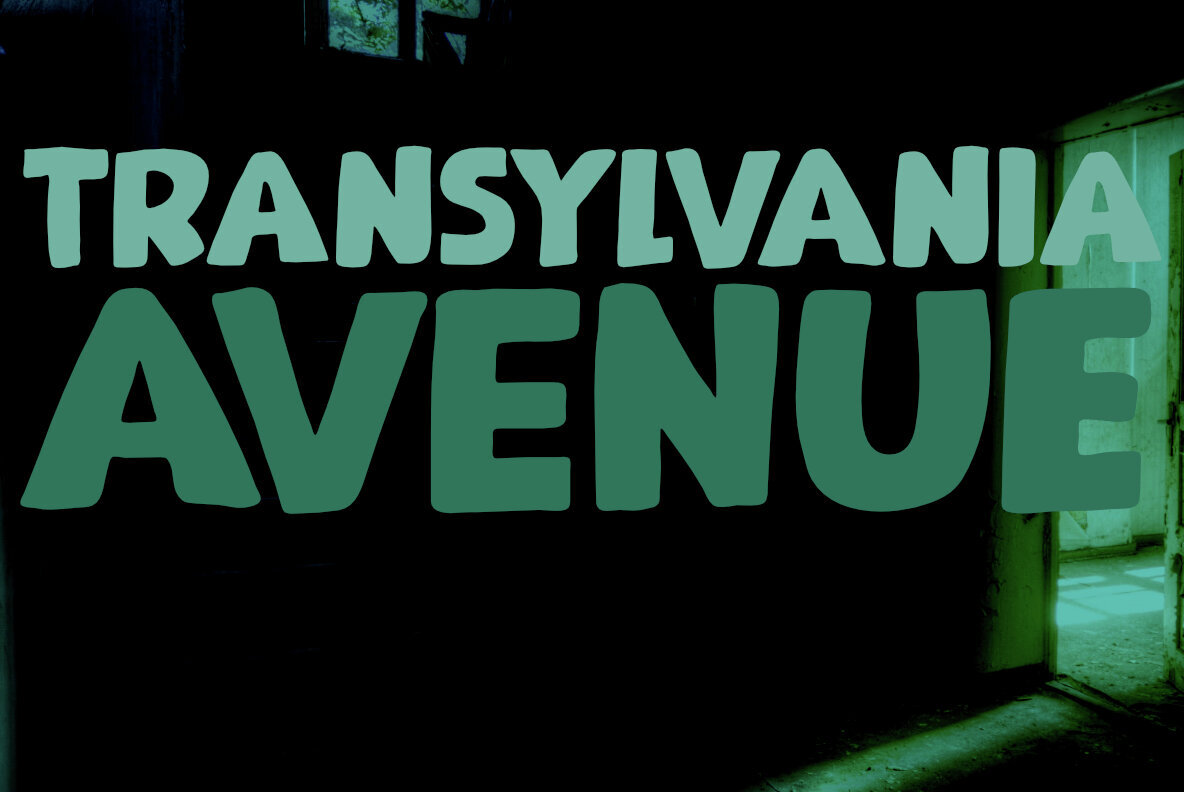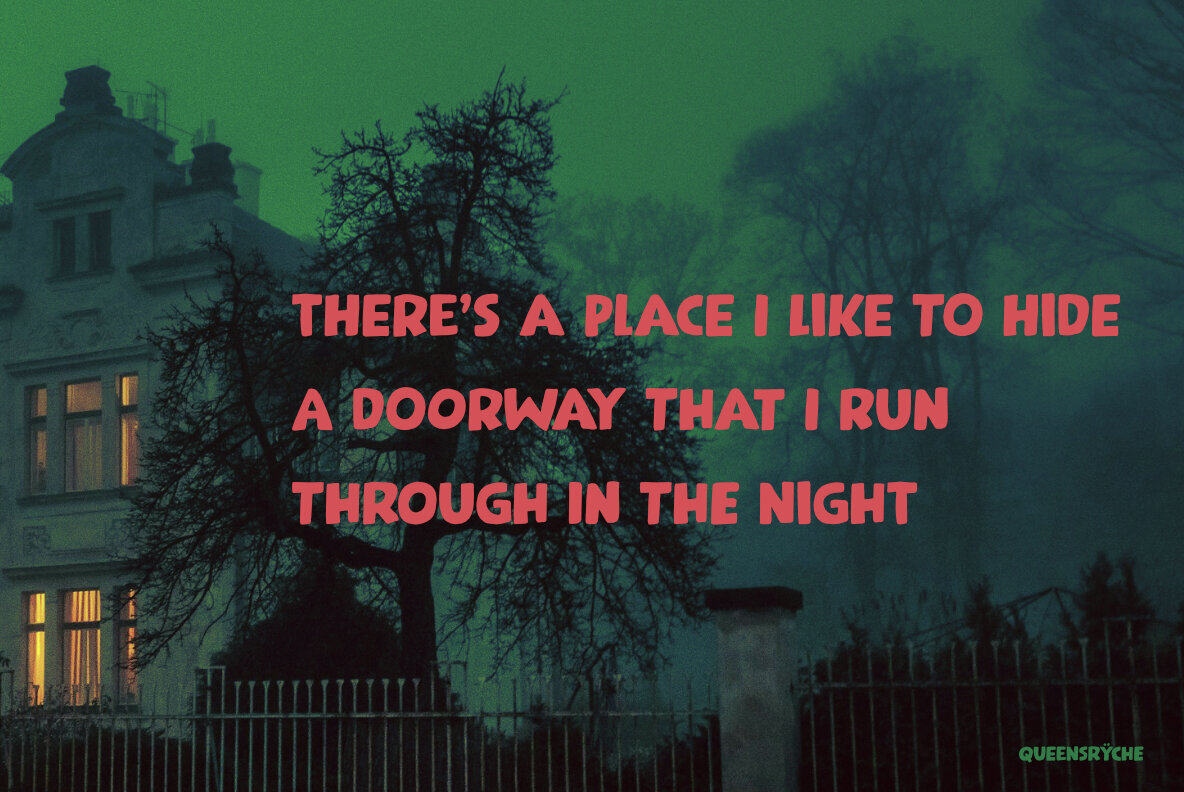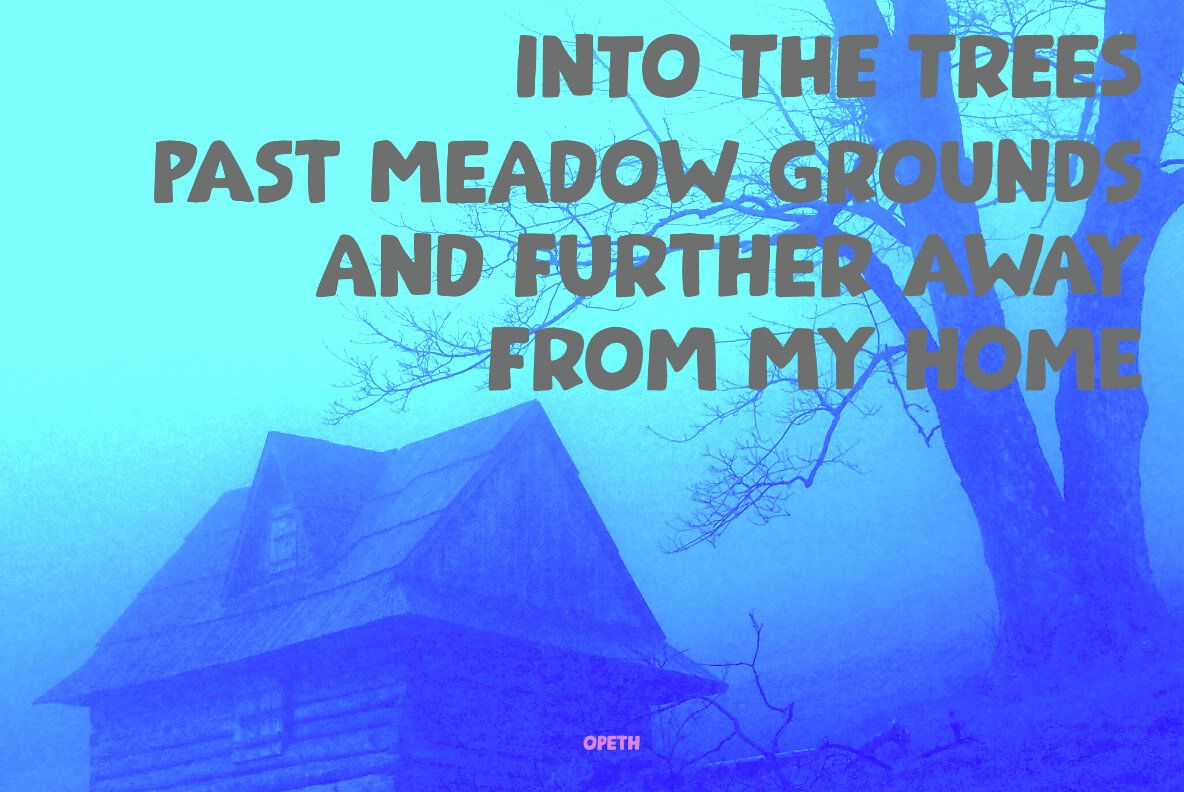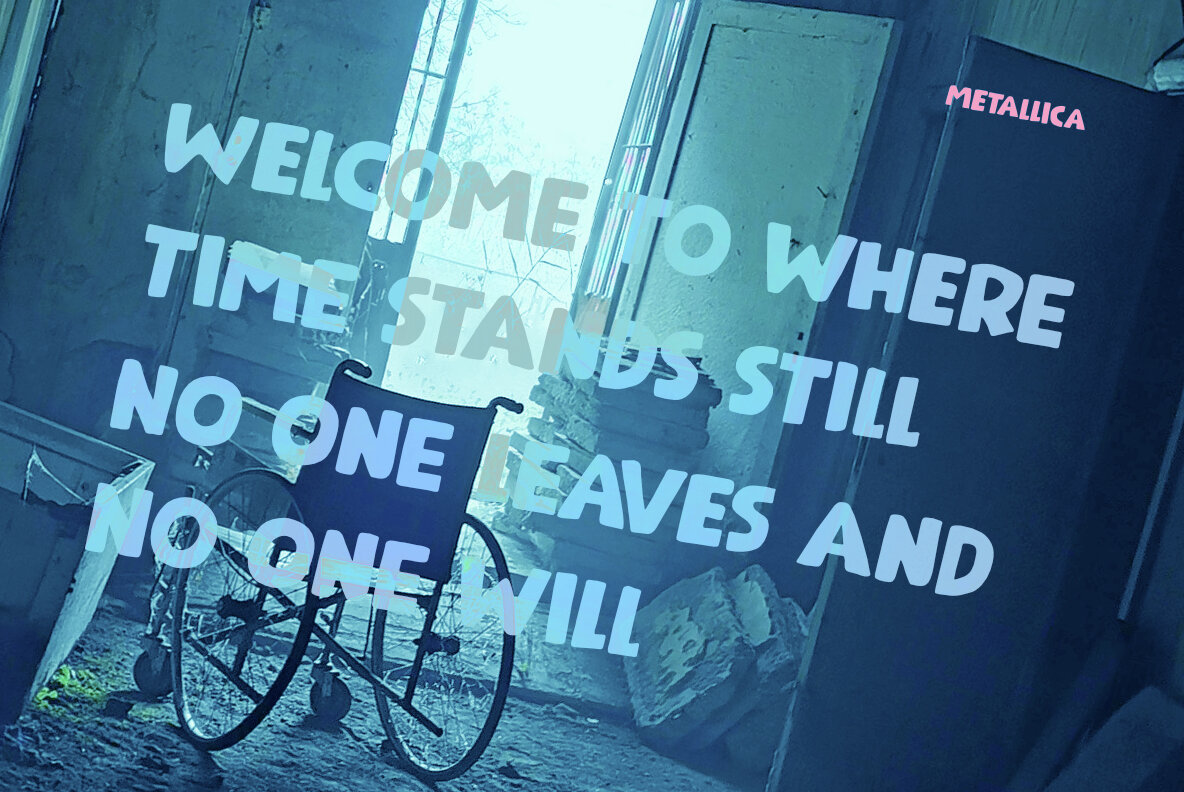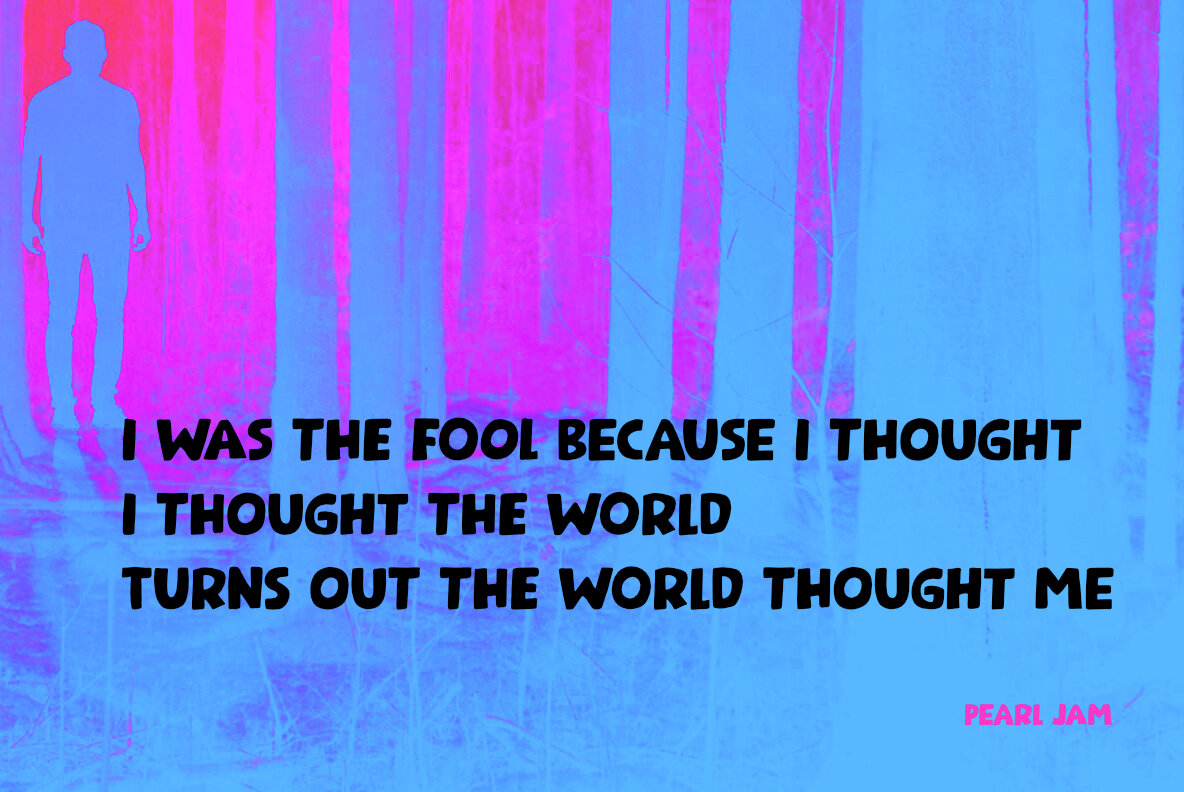
Transylvania Avenue Font
Transylvania Avenue is a bold and expressive font designed for those who want to make a statement. With its dramatic style, this typeface injects a sense of intensity and energy into any project. While the name suggests a touch of horror, the real attraction lies in its striking design and versatility.
This font is equipped with a complete range of accents, making it perfect for international projects that celebrate cultural diversity. Additionally, it includes a full set of auto-rotating alternates, offering a refreshing alternative to standard text formats. Transylvania Avenue is ideal for designers looking to break free from conventional styles and explore new, dynamic typographic possibilities.